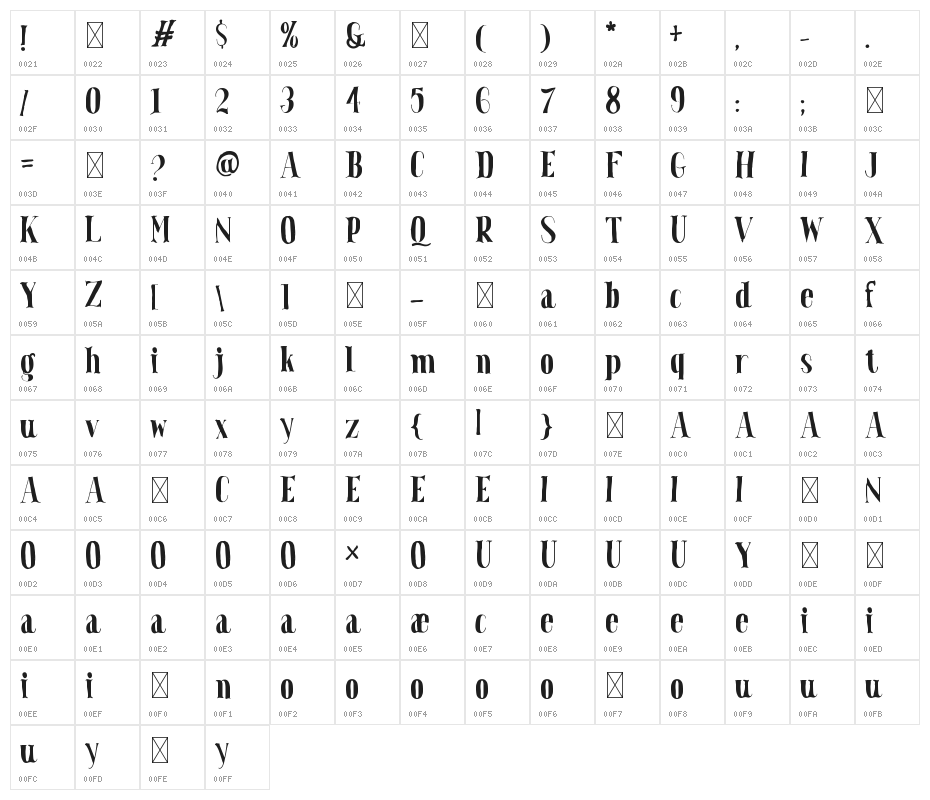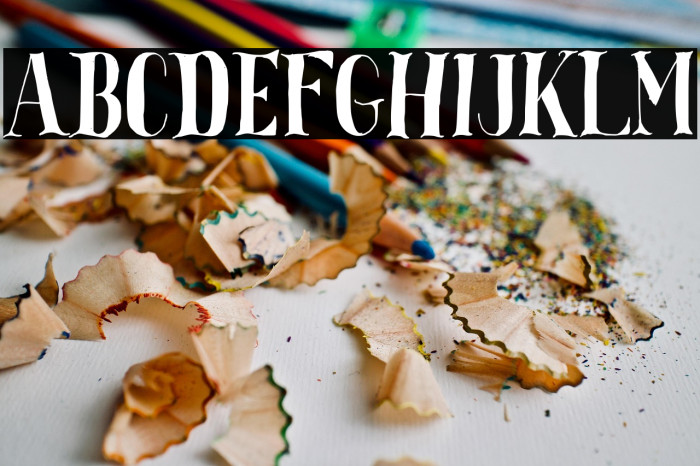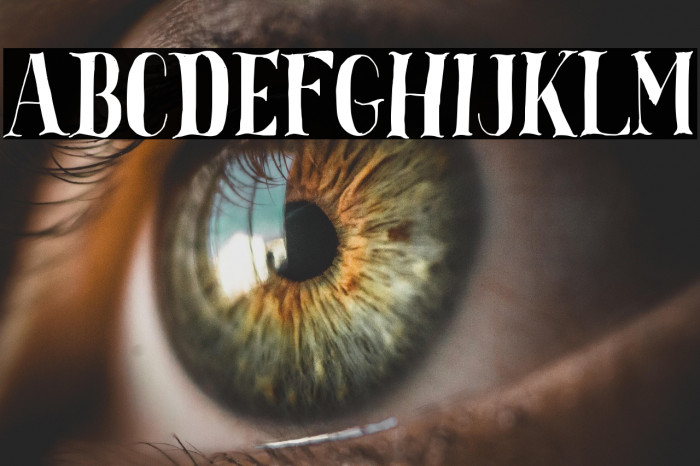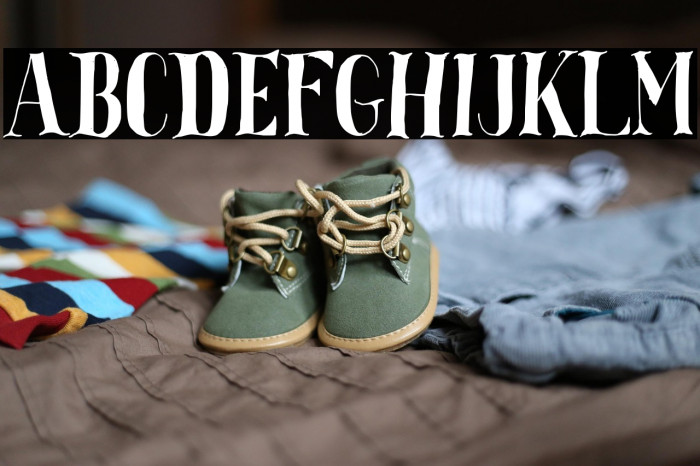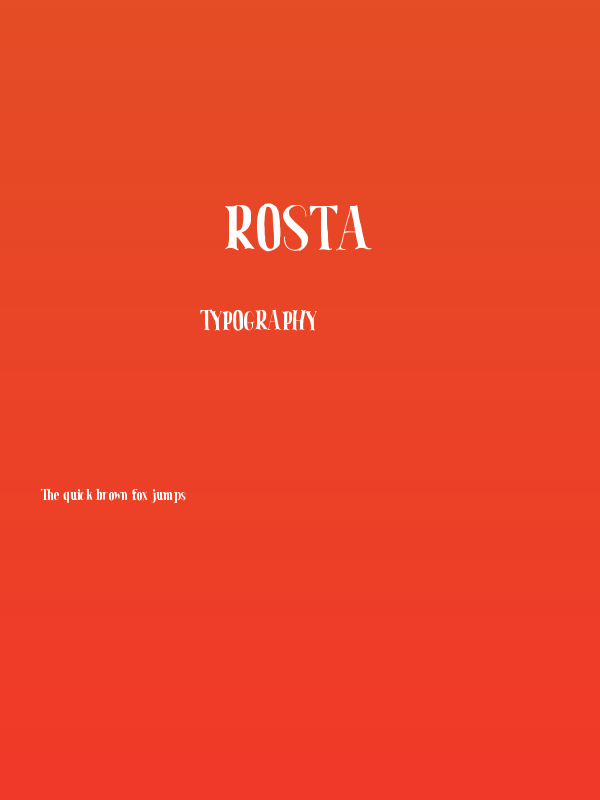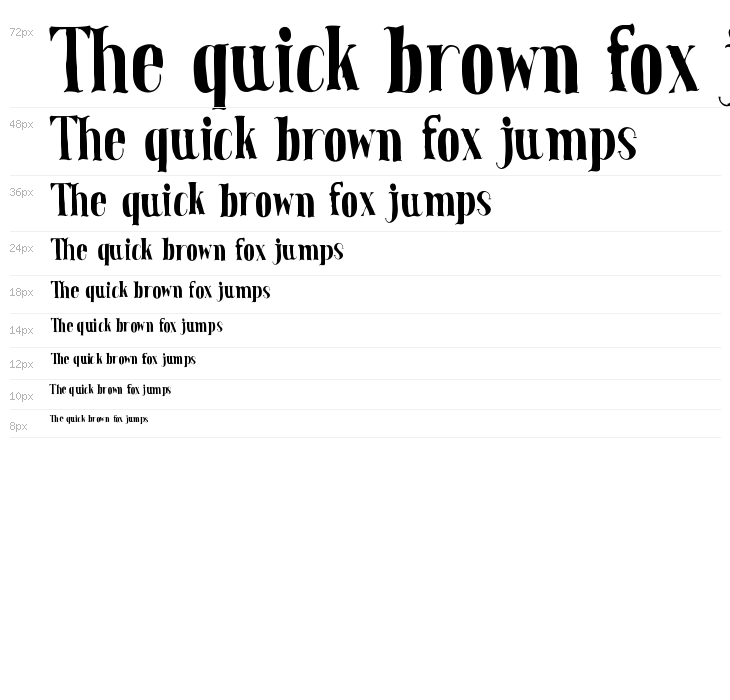
Rosta Font
Rosta Description
This font features a bold and dramatic style with high contrast between thick and thin strokes, giving it a striking and elegant appearance. The uppercase letters are tall and commanding, while the lowercase letters maintain a consistent flow with unique flourishes. The numbers are equally bold, ensuring readability and impact. Special characters are designed with flair, adding to the overall decorative nature of the font. Its distinct style makes it suitable for projects that require a touch of sophistication and drama.
| Proposed Projects | Ideal for branding, headlines, posters, and invitations where a dramatic and elegant touch is desired. |